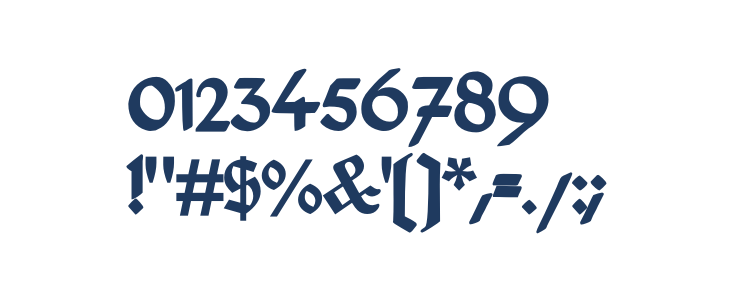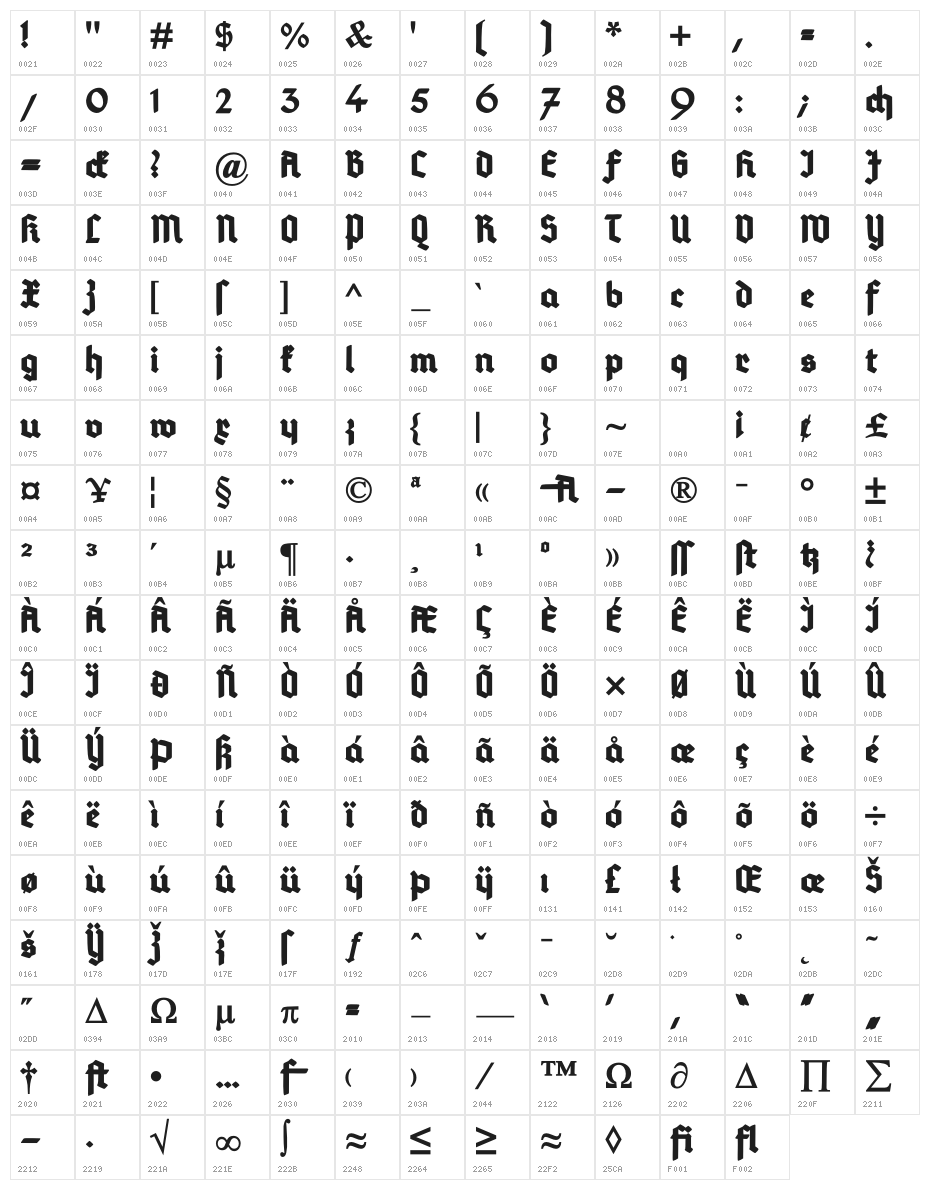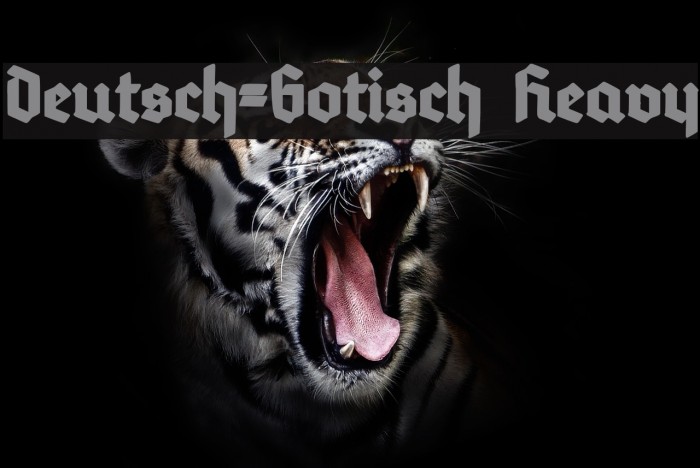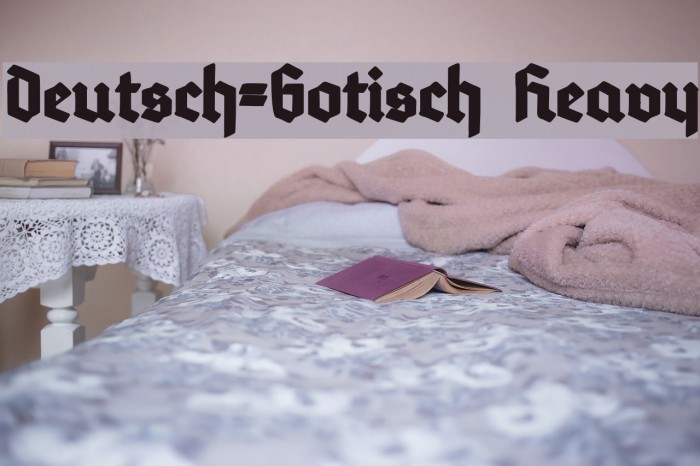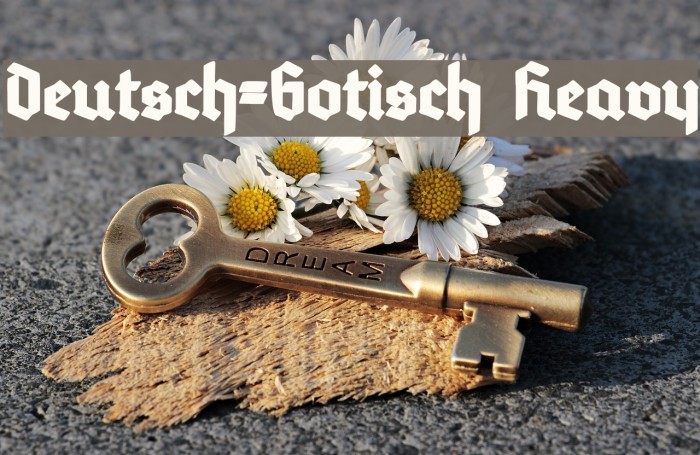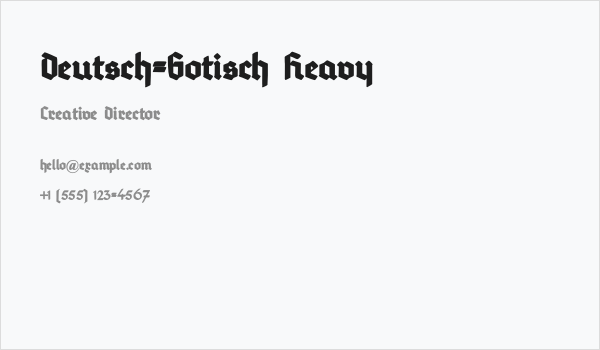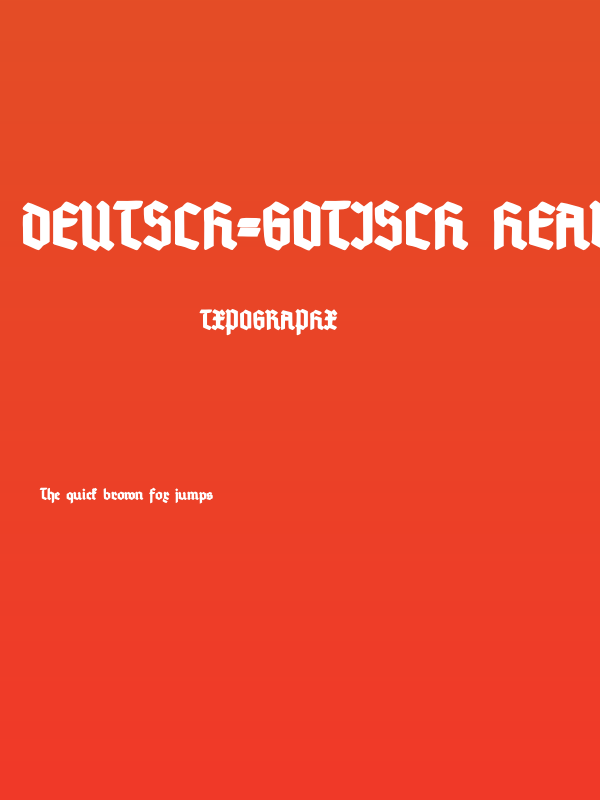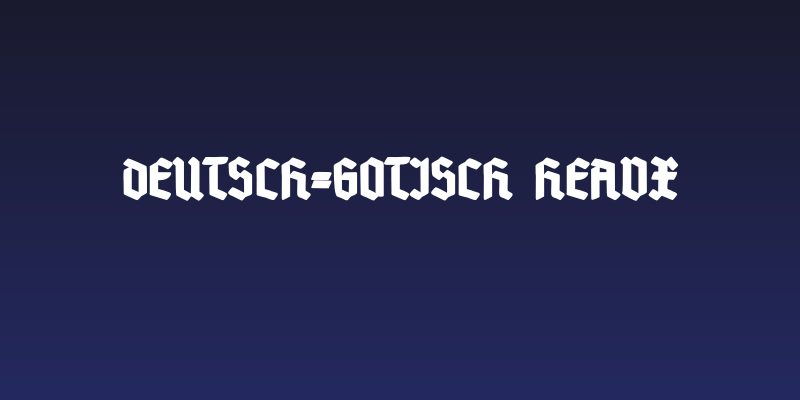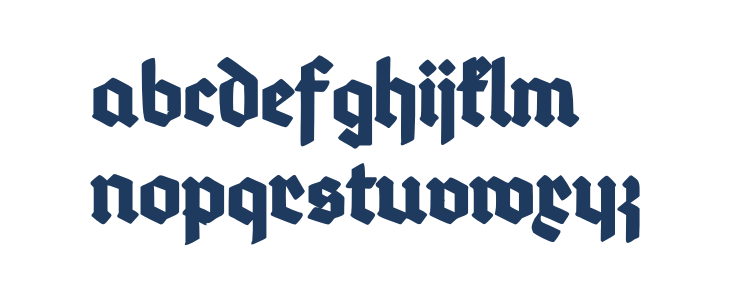
Deutsch-Gotisch Heavy Font
Deutsch-Gotisch Heavy Description
This font exudes a bold and traditional Gothic style, characterized by its heavy, angular strokes and intricate detailing. The uppercase letters are particularly striking, with sharp edges and a strong presence. The lowercase letters maintain the same boldness, offering a consistent look throughout. Numbers and special characters are equally robust, ensuring readability while maintaining the overall aesthetic. The font's design is reminiscent of medieval script, making it ideal for projects that require a historical or classical touch. Its heavy weight and distinctive style make it stand out, perfect for creating impactful headlines or logos.
| Proposed Projects | Ideal for historical-themed designs, book covers, posters, and logos that require a classical or medieval touch. |